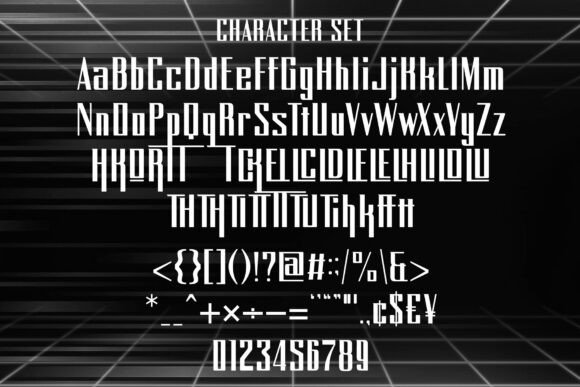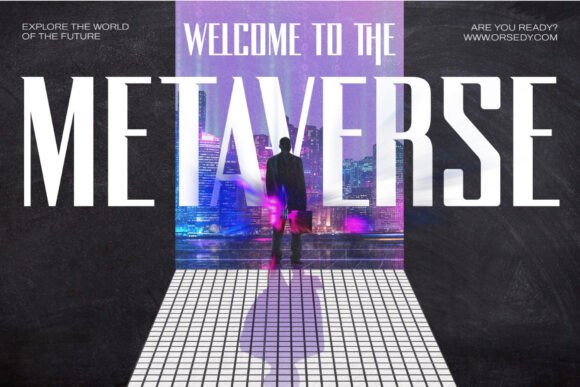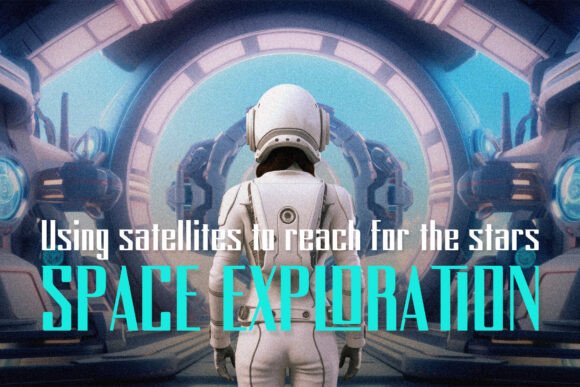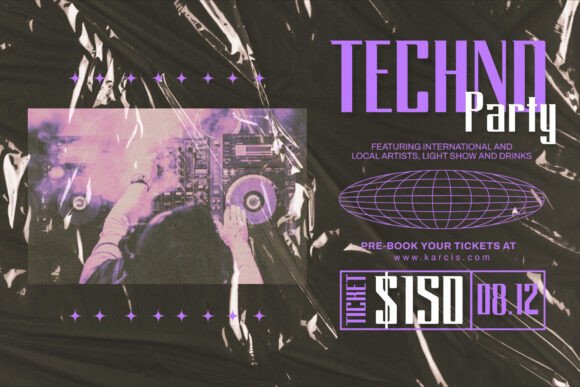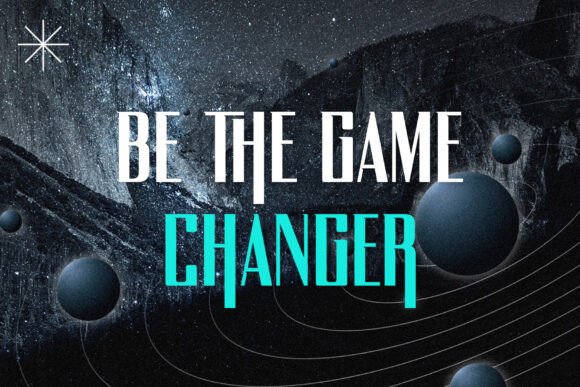
Introducing Alchemio Font: The Ultimate Minimalist & Futuristic Sans Font
In the world of design, typography plays a crucial role in conveying messages, expressing creativity, and building brand identities. For designers and crafters, finding the perfect font can be a daunting task. However, if you’re looking for a versatile and modern sans font, look no further than Alchemio Font. In this article, we’ll explore the features, benefits, and uses of Alchemio Font, and why it’s an excellent addition to your design toolkit.
What is Alchemio Font?
Alchemio Font is a minimalist and futuristic sans font designed to cater to various design needs. Its clean lines, simple shapes, and futuristic feel make it an ideal choice for projects that require a modern and sophisticated look. Whether you’re working on branding projects, logos, social media posts, advertisements, labels, product packaging, photography, wedding designs, watermarks, invitation product designs, stationery, or more, Alchemio Font is an excellent option.
Key Features of Alchemio Font
- Minimalist Design: Alchemio Font boasts a clean and minimalist design, making it perfect for designs that require a subtle yet modern look.
- Futuristic Feel: The font’s futuristic feel adds a touch of innovation and sophistication to your designs.
- Versatility: Alchemio Font is suitable for a wide range of design projects, from branding and logos to social media posts and product packaging.
- Ease of Use: The font is easy to read and works well in both digital and print formats.
Benefits of Using Alchemio Font
So, why choose Alchemio Font for your design projects? Here are some benefits:
- Enhance Your Brand Identity: Alchemio Font can help you create a unique and recognizable brand identity that stands out from the competition.
- Increase Readability: The font’s clean design and simple shapes ensure that your text is easy to read, even at small sizes.
- Save Time: With Alchemio Font, you can quickly create professional-looking designs without spending hours on typography.
- Flexibility: The font’s versatility allows you to use it across various design projects, reducing the need for multiple fonts.
Uses of Alchemio Font
Alchemio Font is an incredibly versatile font that can be used in a variety of design projects, including:
- Branding Projects: Create a unique and recognizable brand identity with Alchemio Font.
- Logos: Design modern and sophisticated logos that stand out from the competition.
- Social Media Posts: Add a touch of modernity to your social media posts and make them more engaging.
- Advertisements: Create eye-catching advertisements that grab attention and convey your message effectively.
- Labels and Product Packaging: Design labels and product packaging that are both functional and visually appealing.
- Photography: Add a modern touch to your photography with Alchemio Font.
- Wedding Designs: Create beautiful and elegant wedding designs, including invitations, programs, and more.
- Watermarks: Add a professional touch to your images with Alchemio Font.
- Invitation Product Designs: Design unique and stylish invitations for any occasion.
- Stationery: Create modern and sophisticated stationery, including business cards, letterheads, and more.